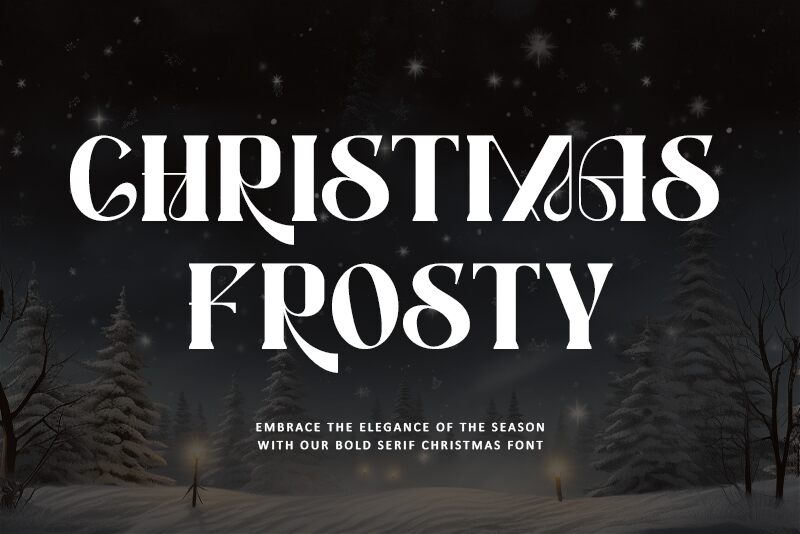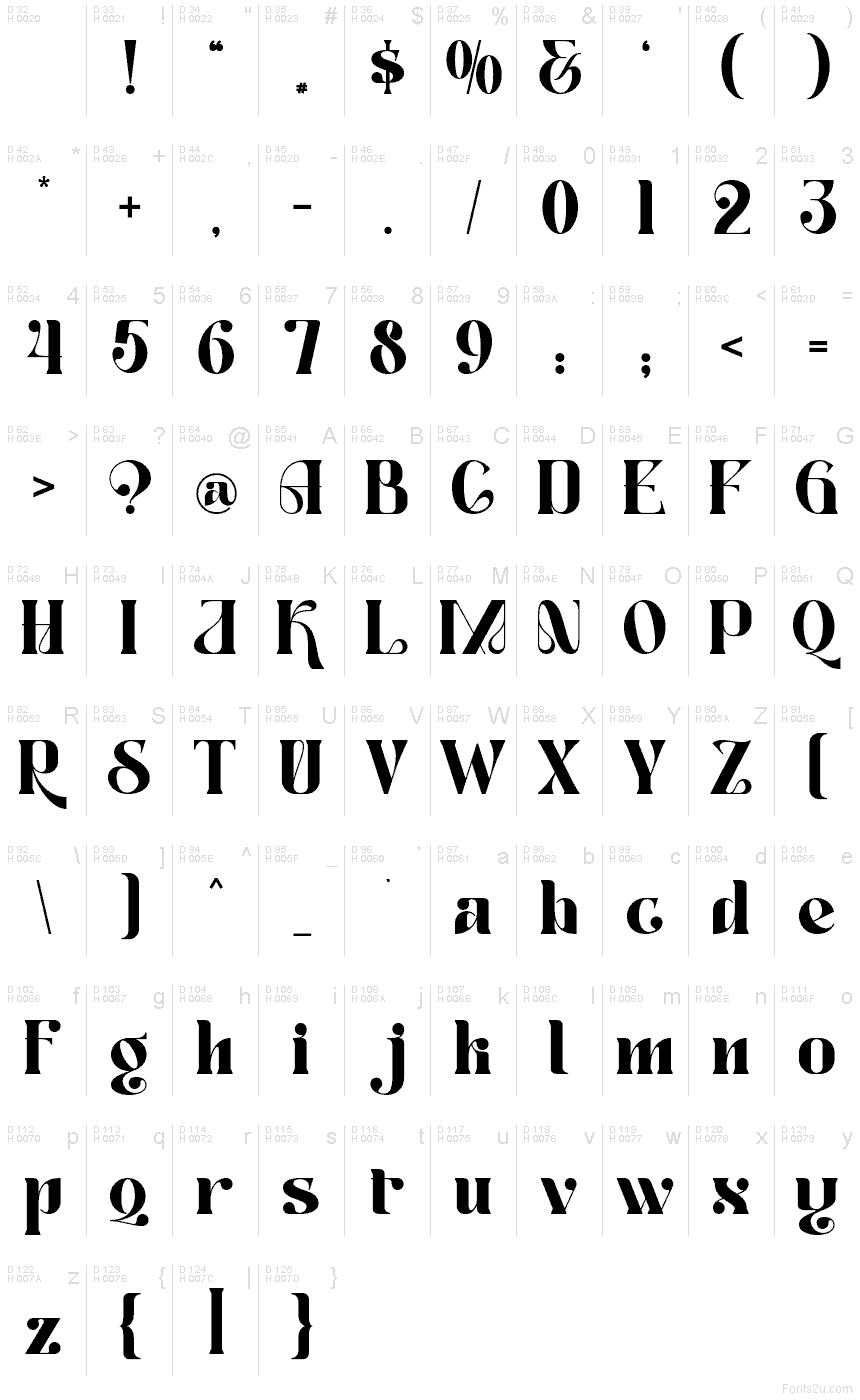
Christmas Frosty font by Letterara wraps your text in cozy, storybook charm, like headlines carved into fresh snow. This is a free decorative Christmas holiday typeface with chunky, upright letters and playful ball accents that feel like tiny snowballs perched on each curve. The strokes are bold and inky, giving your words a warm, handcrafted presence that still reads clearly at a glance.
Using Christmas Frosty, your festive projects instantly feel more magical—think greeting cards, gift tags, mug designs, advent calendars, party invitations, and storefront signage. The steady rhythm and generous curves make short phrases and titles feel joyful rather than cluttered. This free font pairs nicely with a clean sans serif for body text; try setting Christmas Frosty large for headlines and let a simple companion handle the details underneath.